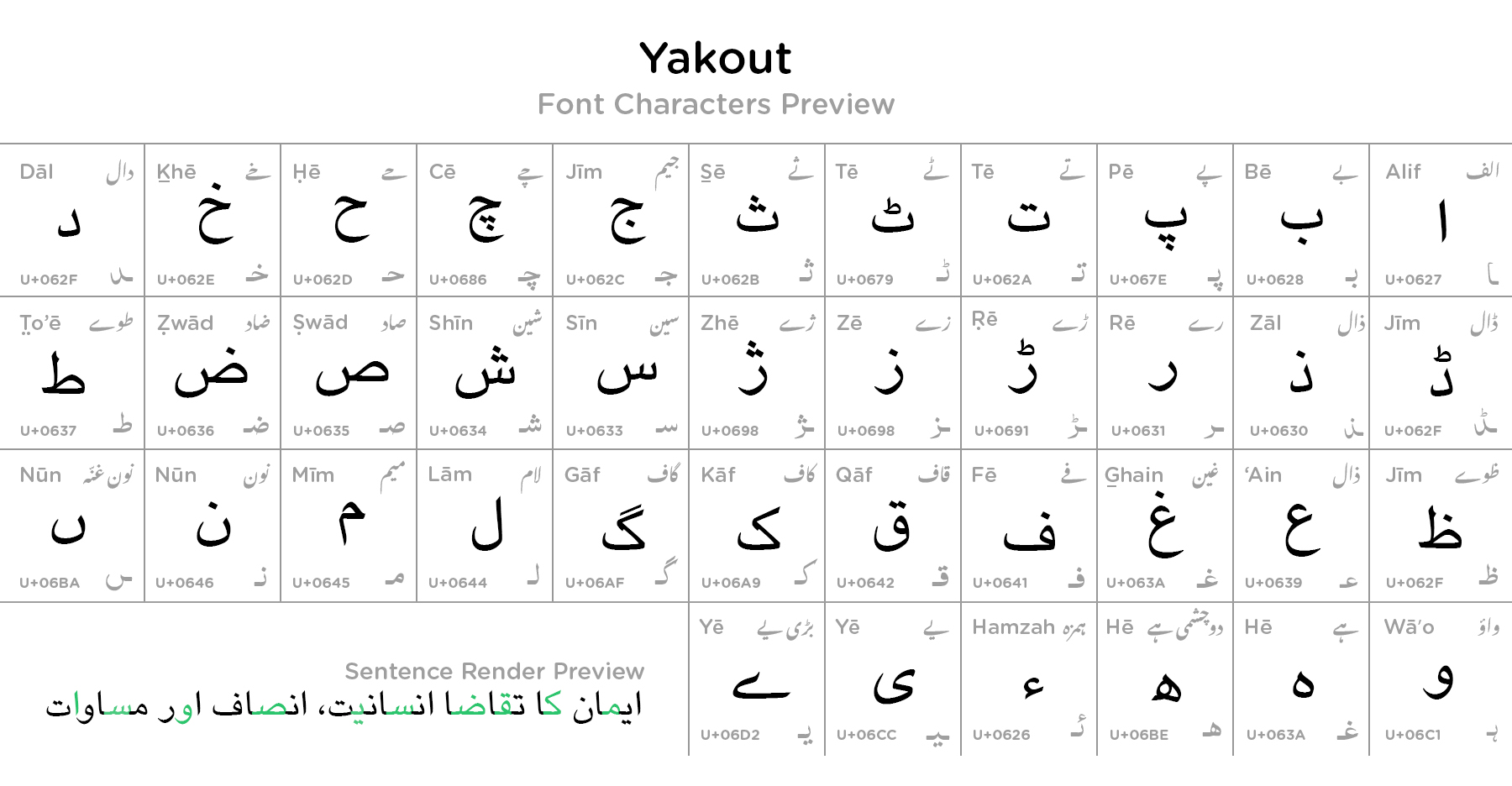
Yakout is an Arabic Latin typeface that was designed by Nahib Jaroudi. It was published by Linotype Design Studio, under the trademark of Heidelberger Druckmanschinen AG. The font has formal and professional vibe, having slightly thick strokes and balanced proportions. Some of its edges are curved while the others contain peeks. The font is resembling the Qalam Writing style of Urdu calligraphy. There is a consistent connection between letters. The font likely draws inspiration from classical Arabic scripts such as Naskh and Ruqaa. It is available in two weights, including:
Yakout Regular